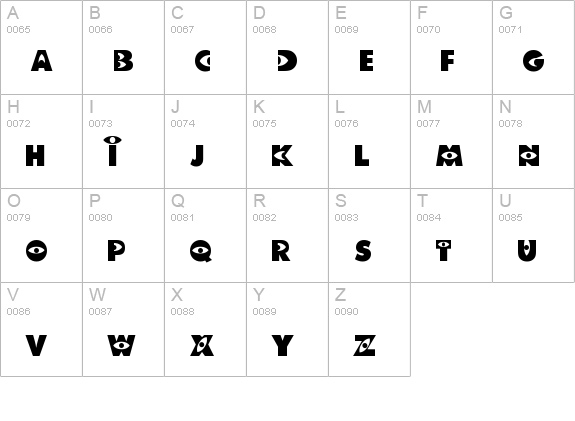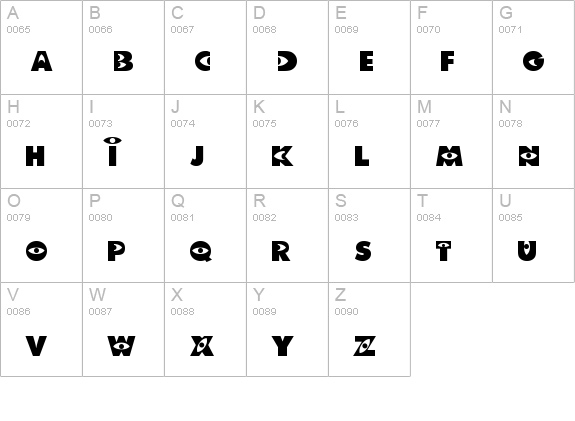
Introducing Monster AG font, a captivating display typeface that perfectly captures the essence of fun and excitement. This font is designed to bring a touch of playfulness to your designs, making it ideal for children's books, posters, logos, and more. With its quirky and unique letterforms, Monster AG font adds a delightful and whimsical touch to any project. Each character is carefully crafted to exude a sense of mischief and charm, making it an excellent choice for capturing the attention of young readers or creating a lighthearted atmosphere. The best part is that Monster AG font is available for free! Yes, you heard it right - this remarkable font can be freely downloaded at FontsMarket.com. Now, you can add a touch of magic to your designs without breaking the bank. Whether you're working on a school project, designing a birthday invitation, or creating an eye-catching poster, Monster AG font is your go-to choice. Its versatility allows it to seamlessly blend into any design concept, while its vibrant and energetic personality ensures that your message will be conveyed with utmost impact. So, why wait? Let your creativity run wild and download Monster AG font for free at FontsMarket.com. Discover the enchanting world of this delightful typeface and watch as your designs come to life with every stroke. Get ready to embark on a thrilling typographic adventure that will leave a lasting impression on your audience.